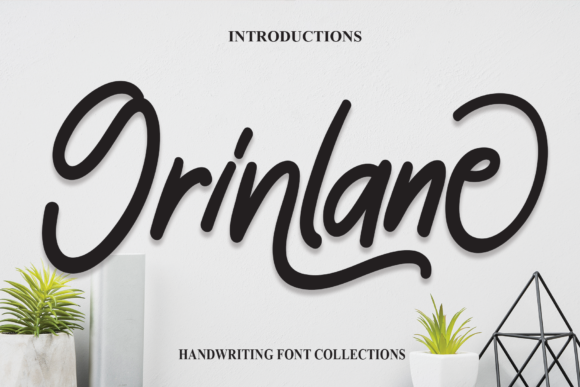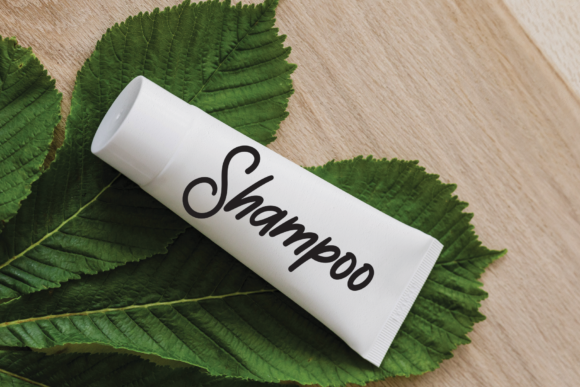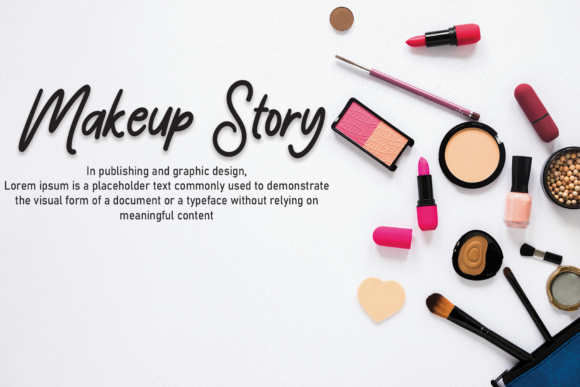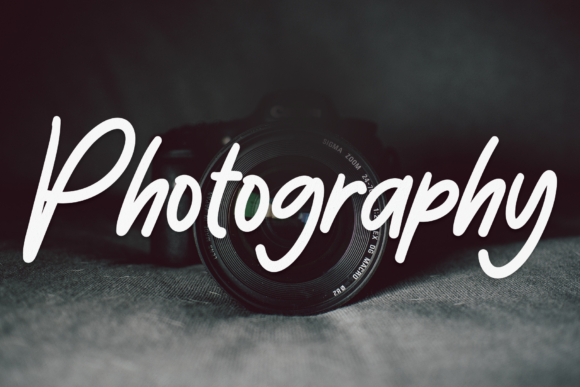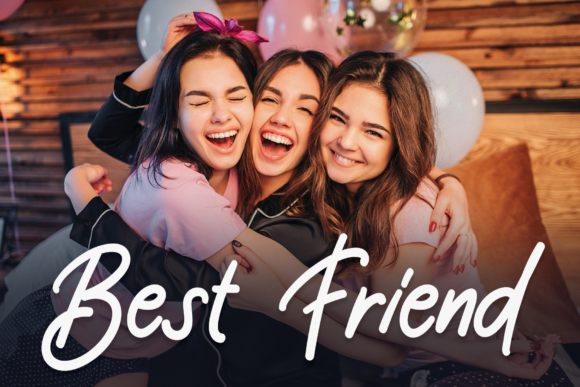
About Grinlane Font
Grinlane is a beautiful script font perfect for wall displays, wedding invitations, social media posts, logos, advertisements, product packaging, product designs, labels, photography, watermarks, invitations, stationery, and any project that requires a handwritten touch.